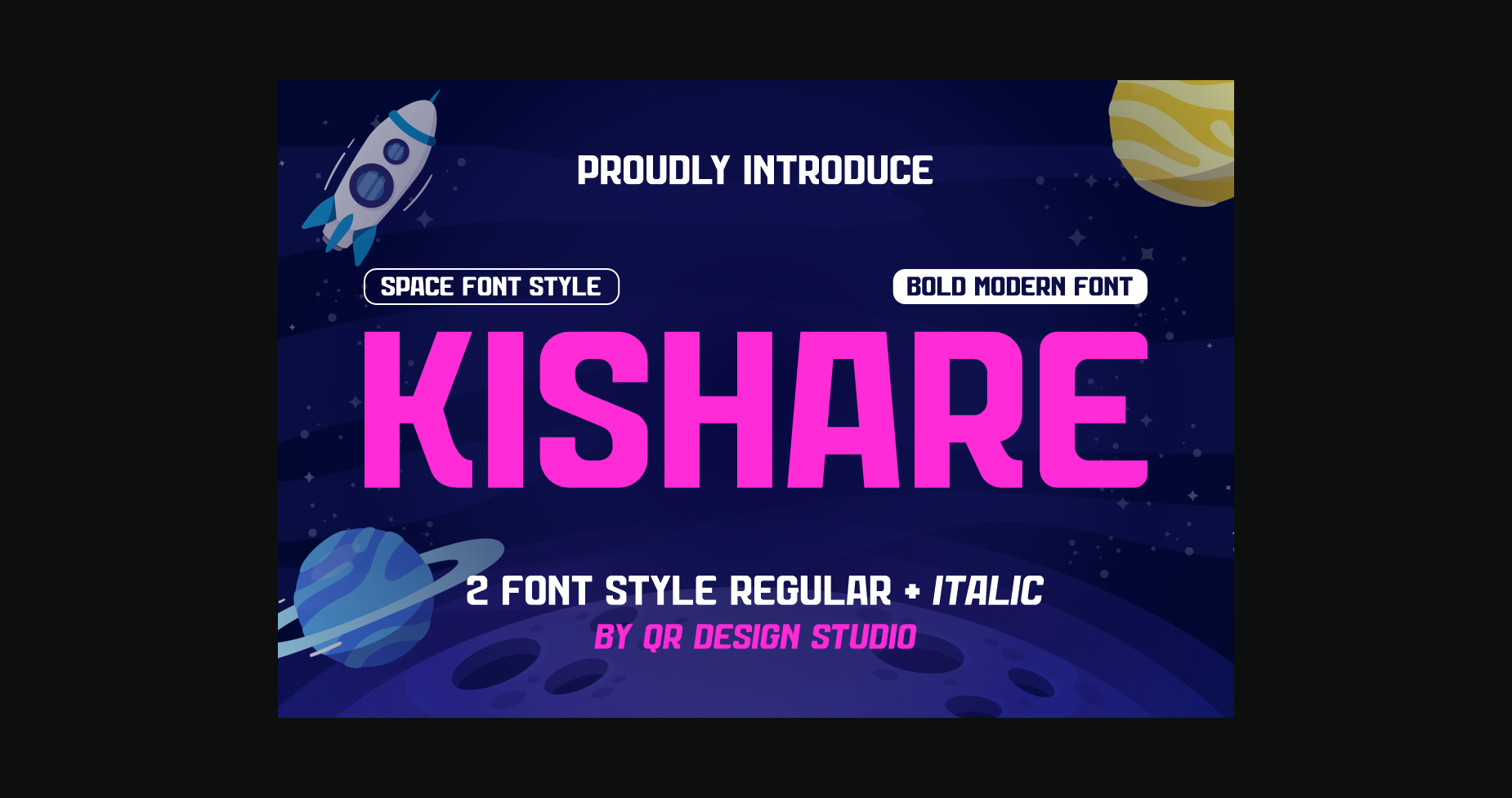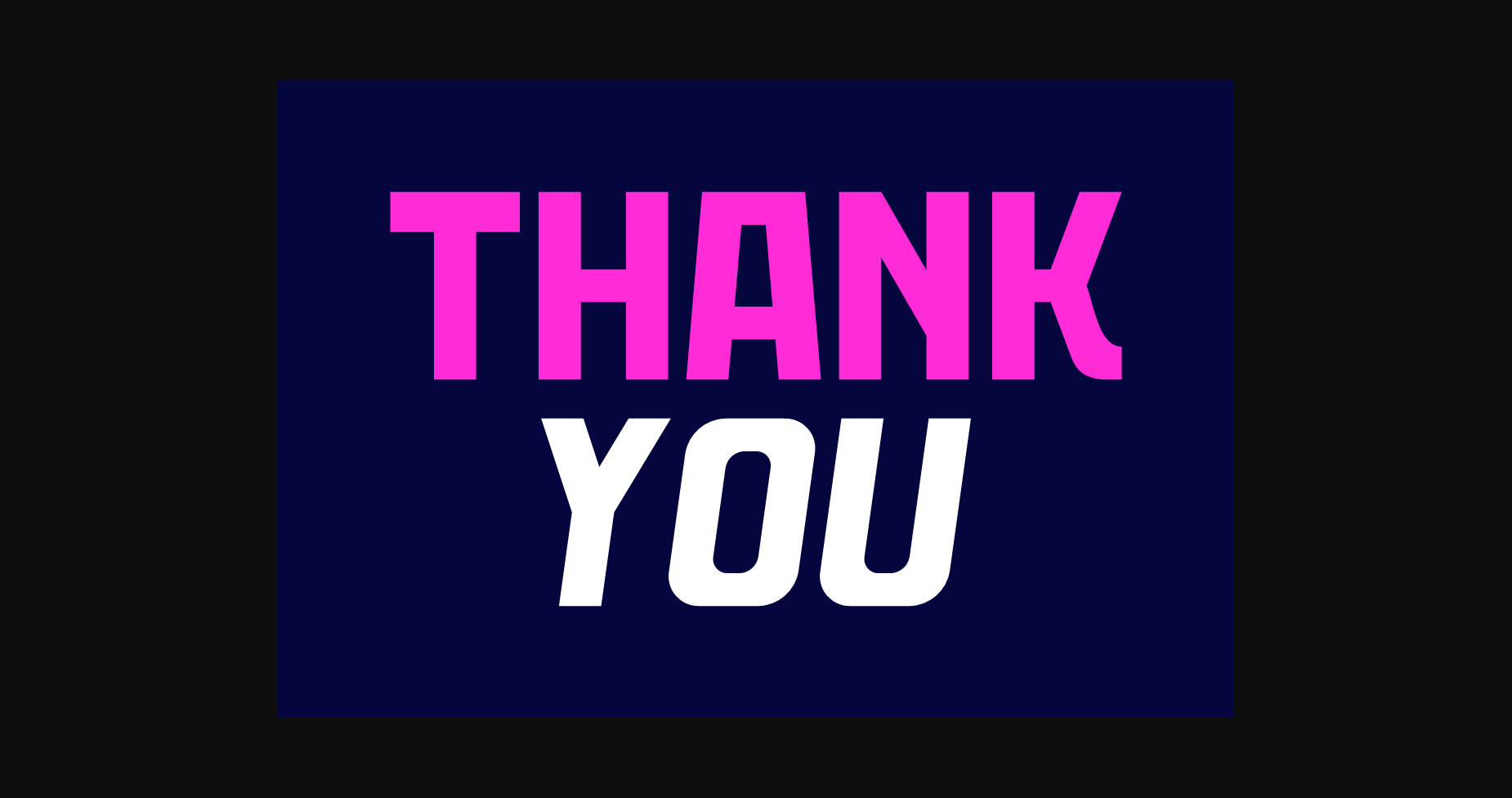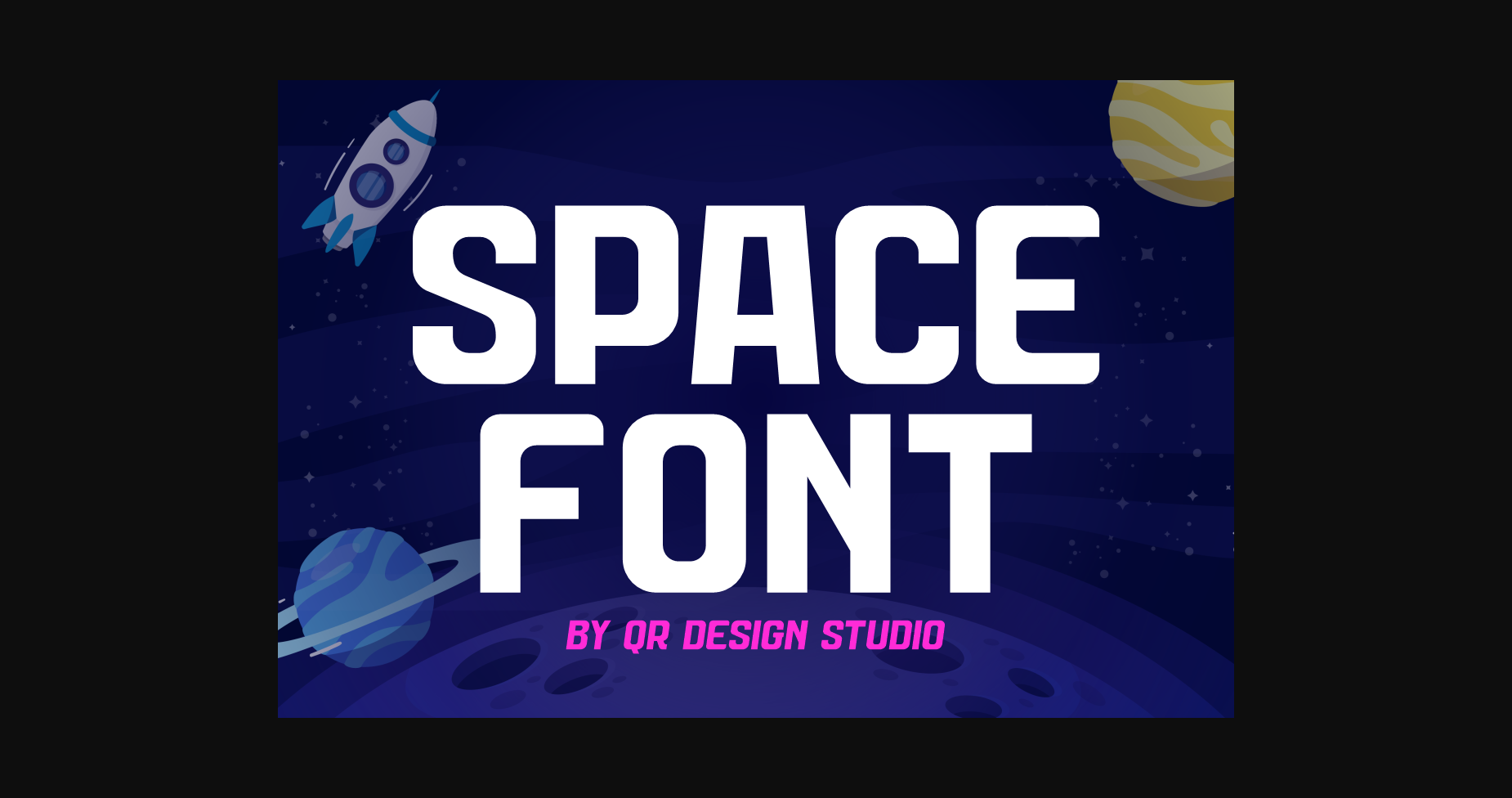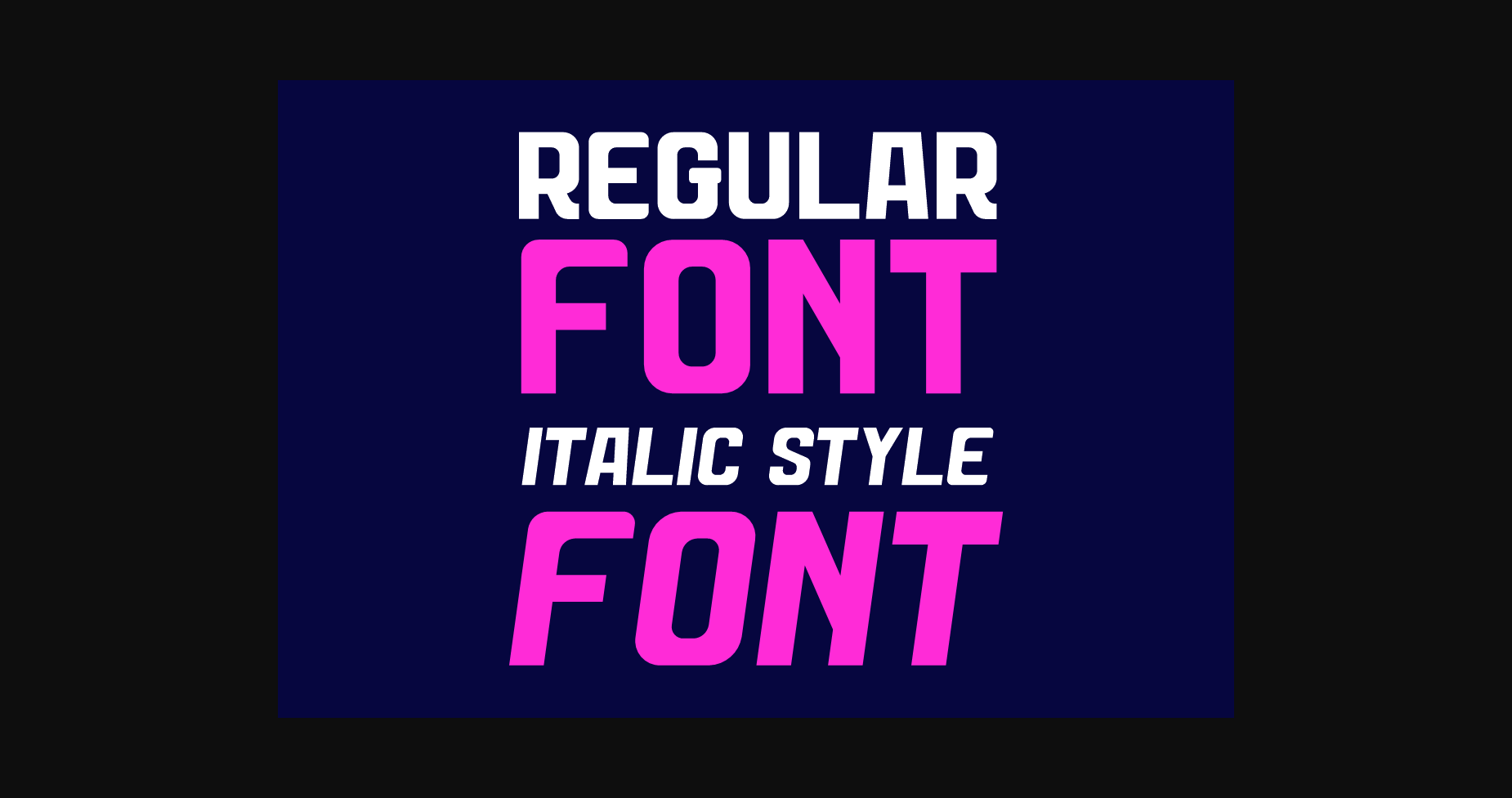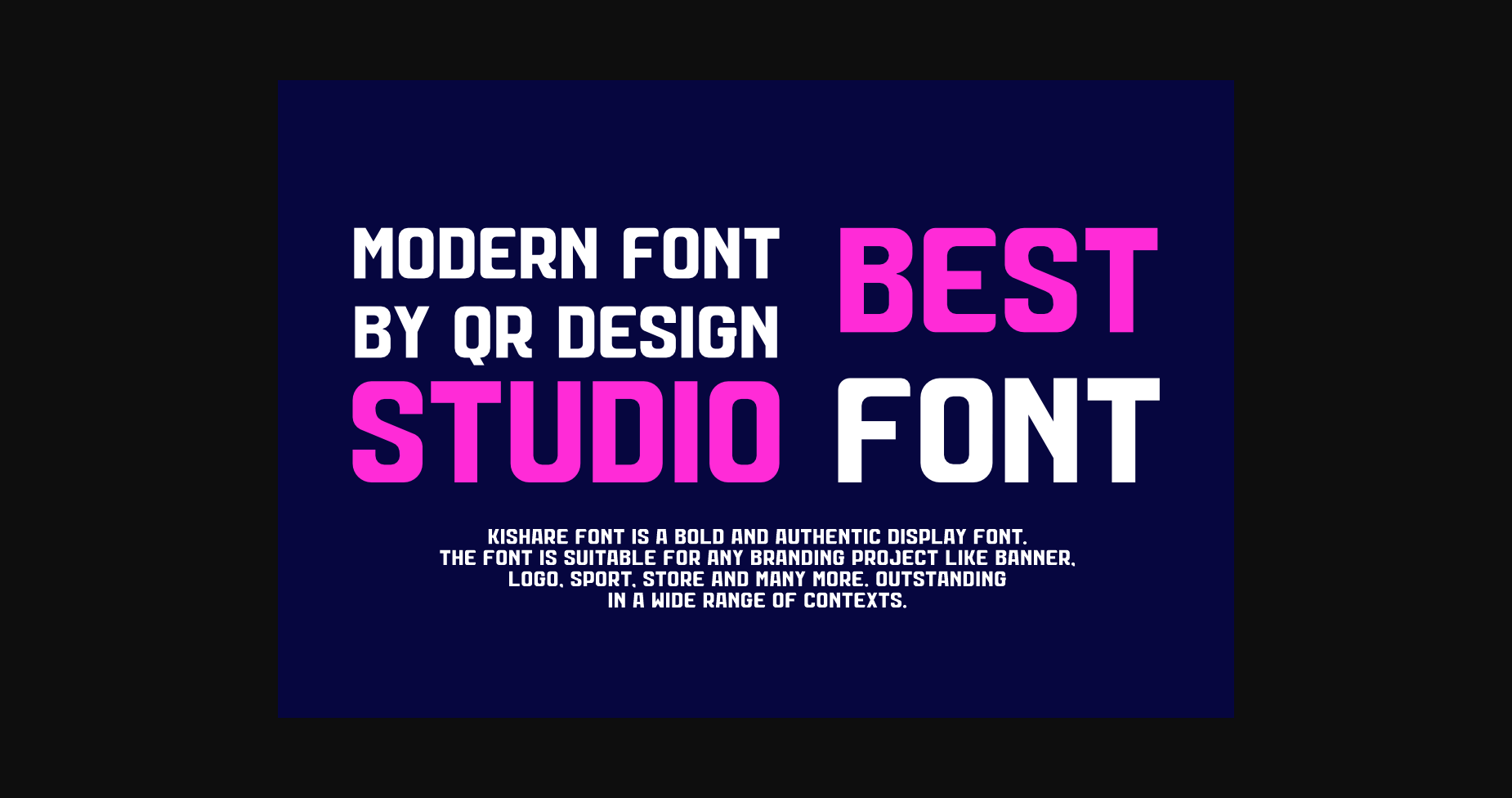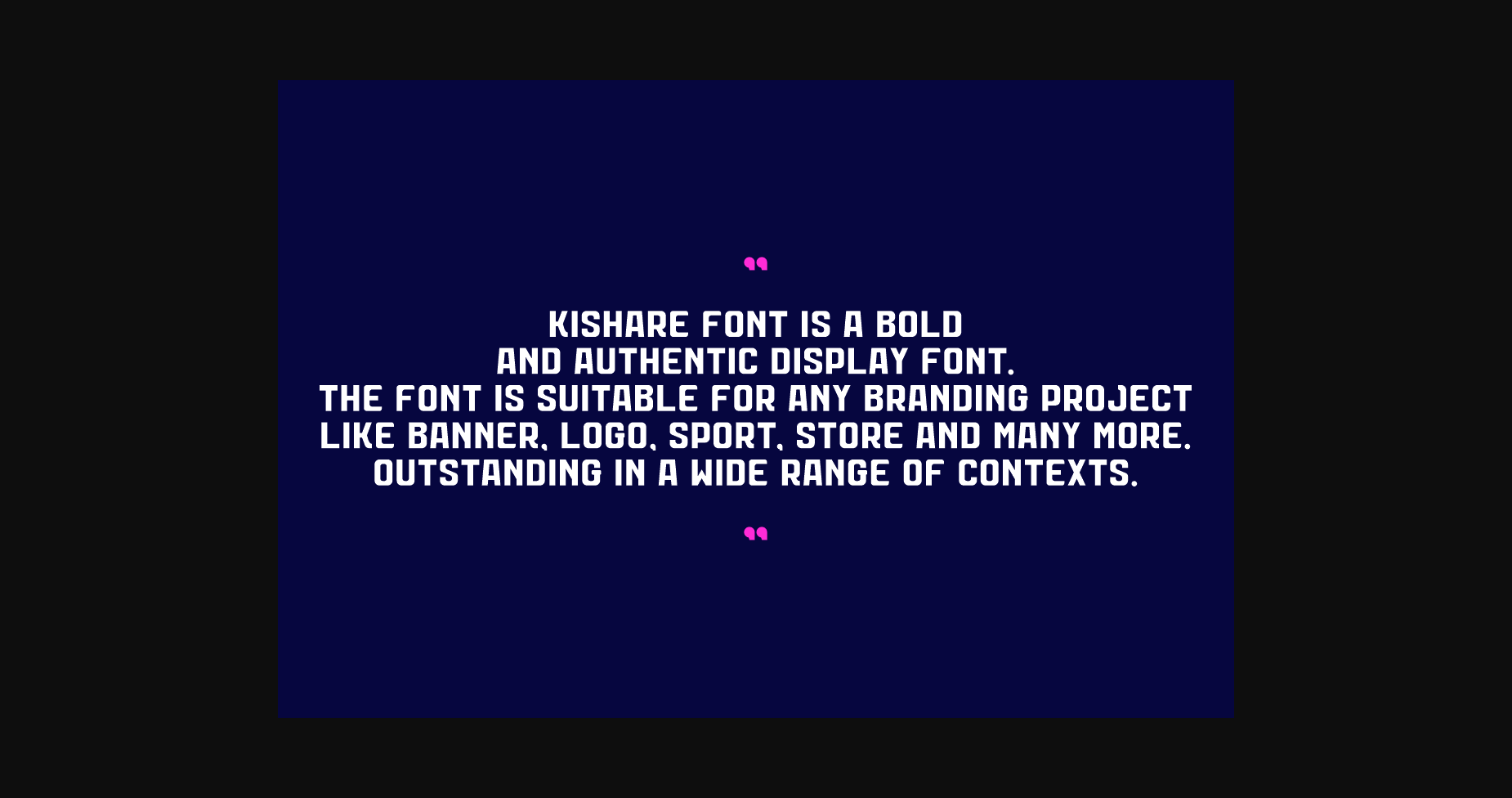
About Kishare Font
Kishare Font is a bold and authentic display font.
The font is suitable for any branding project like logo, poster, food, sport, space, and many more.